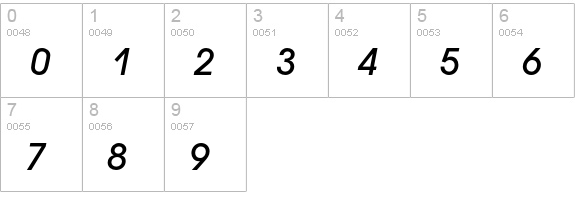
AvantGardEF-MediumOblique Font Details
AvantGardEF-MediumOblique font is a unique and stylish typeface that combines modern elegance with a touch of avant-garde flair. Its sleek lines and slanted angles give it a dynamic and eye-catching appearance, making it perfect for adding a contemporary edge to your designs. This font is a versatile choice for a wide range of projects, from branding and advertising to web design and social media graphics. Its medium weight and oblique style add a sense of sophistication and creativity to any text, making it a standout choice for anyone looking to make a statement with their typography. Best of all, AvantGardEF-MediumOblique font is available for free download at FontsMarket.com. This means you can easily access this stylish and professional typeface without breaking the bank. So why wait? Download AvantGardEF-MediumOblique font today and elevate your design projects with its modern and impactful aesthetic.